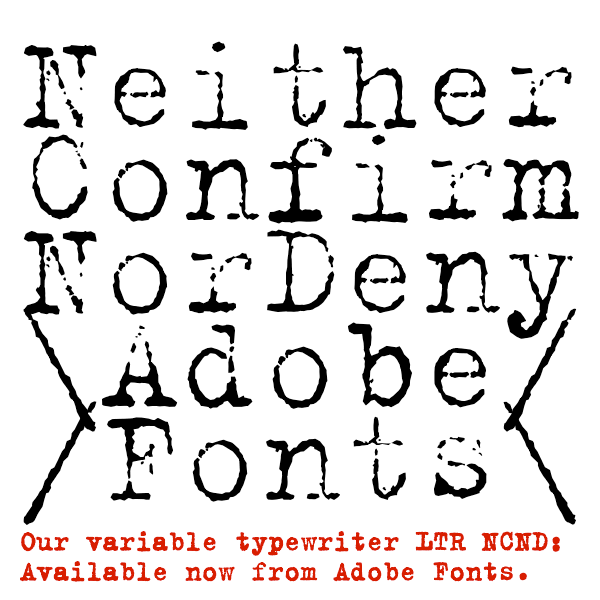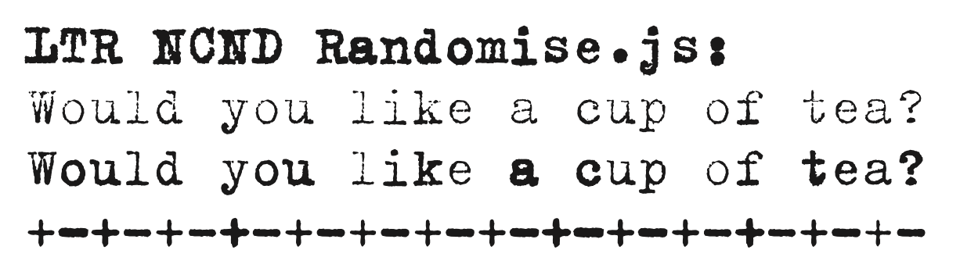
NEWS LTR №6: LTR NCND on Adobe Fonts
LTR NCND is now available from Adobe Fonts!
LettError's textured and magically variable typewriter typeface can now be used with Adobe Fonts.
Of course we would love to point you to the page about the history and development of LTR NCND. And then we would also tell you it supports Latin and Cyrillic as well as Greek.
The Press Raves
“The typewriter typeface formerly known as ‘Trıxie’ gets a makeover and a new name: Neither Confirm Nor Deny (NCND).” Article by Paul Barnes for Eye Magazine.